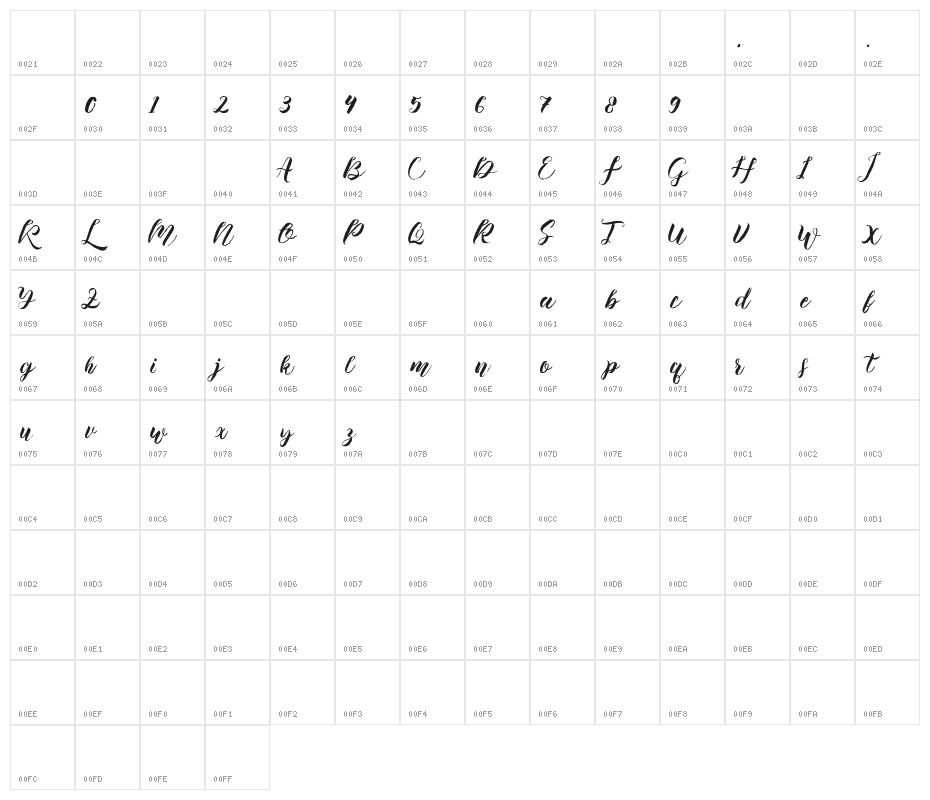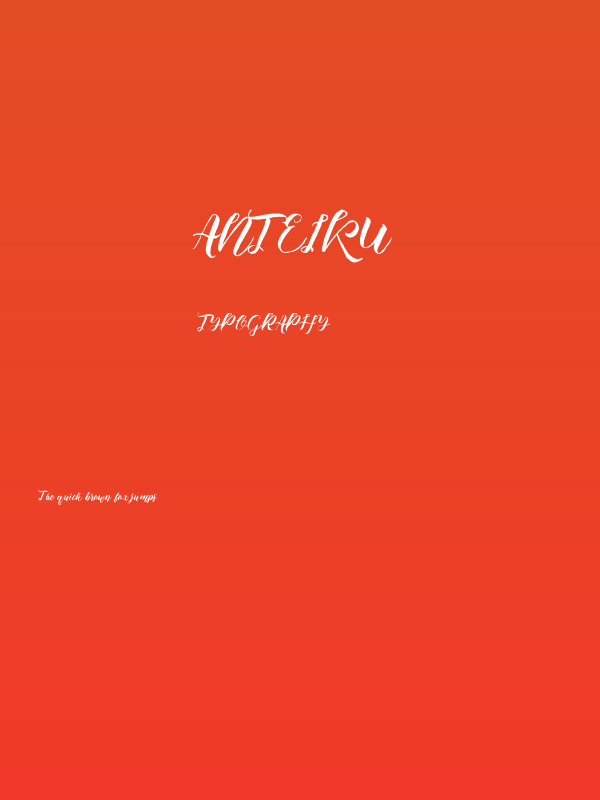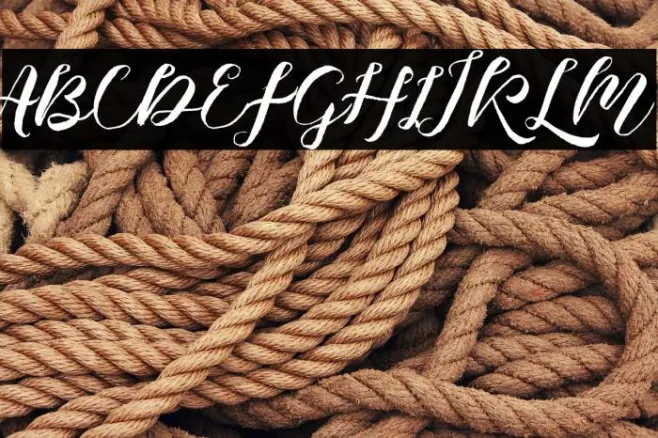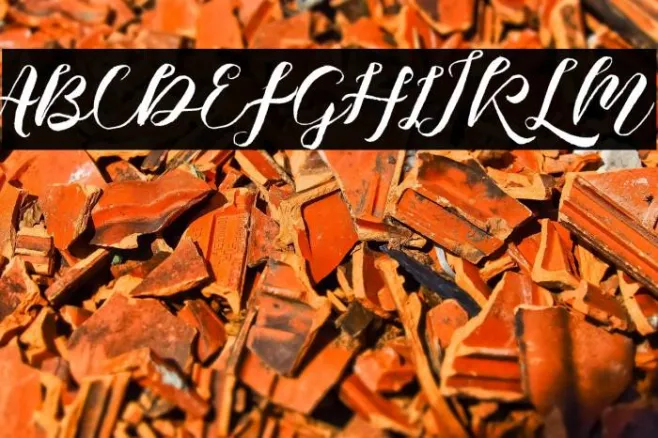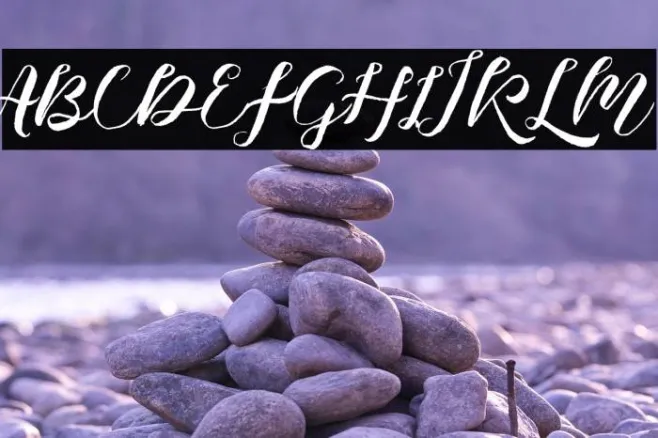
Anteiku Font
Anteiku Description
This font features a flowing, cursive style with a handwritten appearance. The letters are elegantly connected, with a dynamic and fluid motion that gives a sense of artistic flair. The uppercase letters are bold and expressive, while the lowercase letters maintain a consistent style with slightly less emphasis. The numbers are similarly styled, maintaining the overall aesthetic. The strokes vary in thickness, adding a lively contrast that enhances readability while maintaining a decorative appeal. This font is ideal for projects that require a personal touch or a creative, artistic vibe.
| Proposed Projects | Ideal for wedding invitations, greeting cards, personal branding, and artistic projects. |